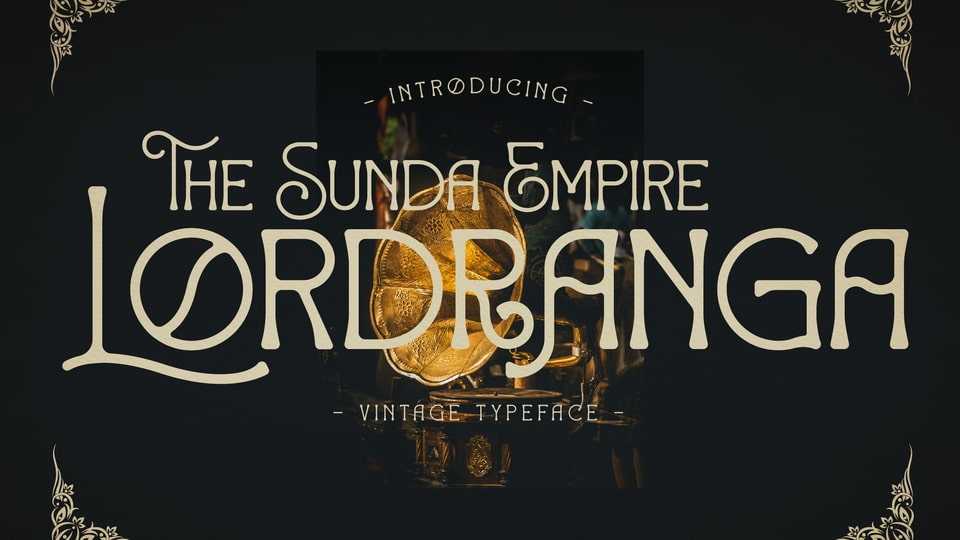
Download Lordranga font, a vintage serif typeface that has own unique style and modern look. Lordranga font is perfect for an elegant and luxury logo, book or movie title design, fashion brand, magazine, clothes, lettering, quotes, and so much more.